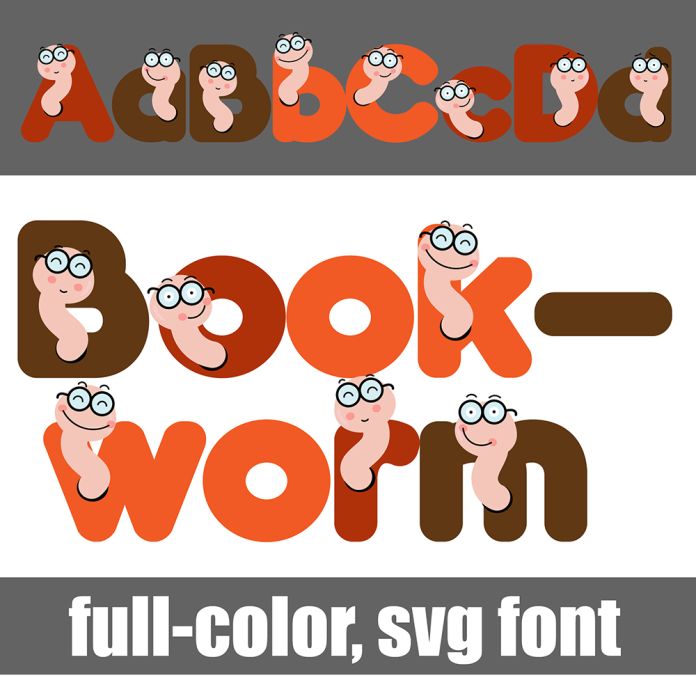
This full-color font features adorable bookworms in a autumn color palette. There is an alt case with additional colors you can access through your system's character map. This font works best for titles, displays, posters and more. Please note color fonts will show as black in non compatible programs. This font type is compatible with Silhouette Studio.